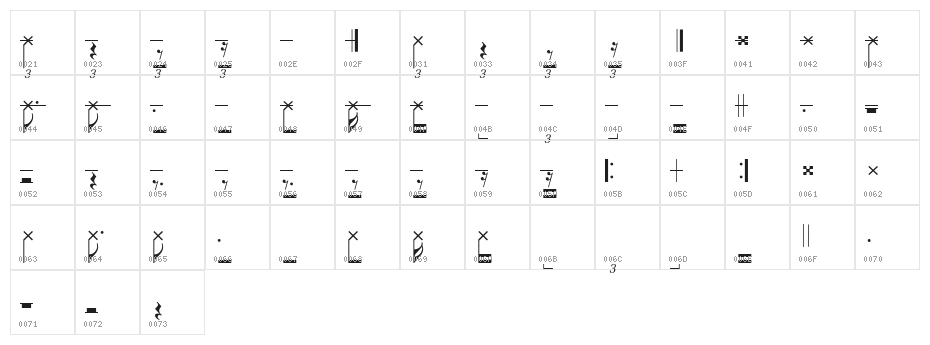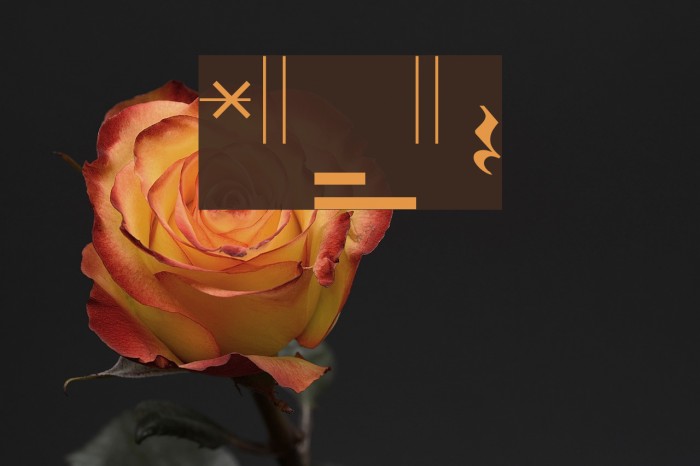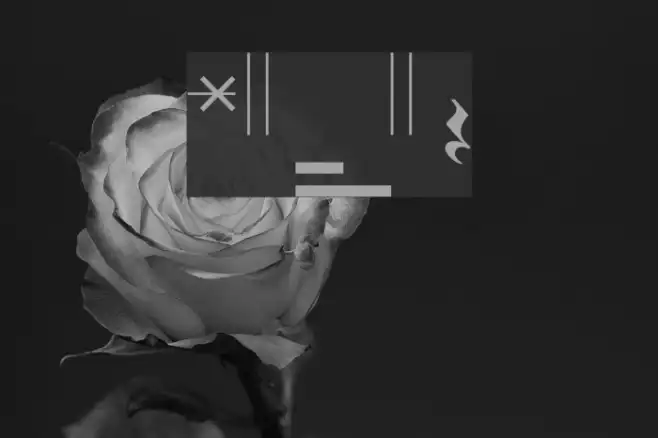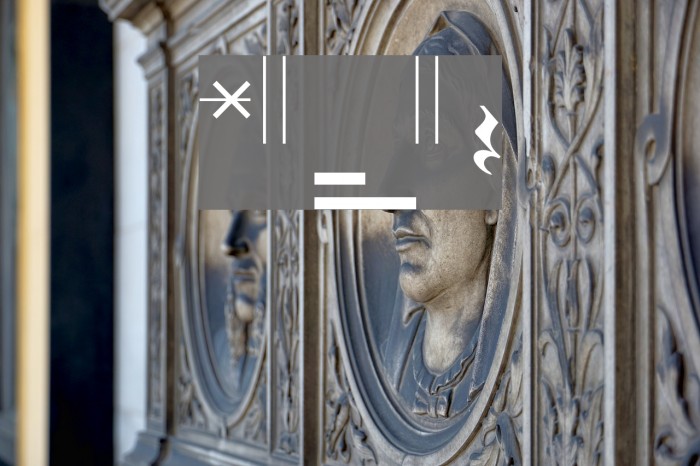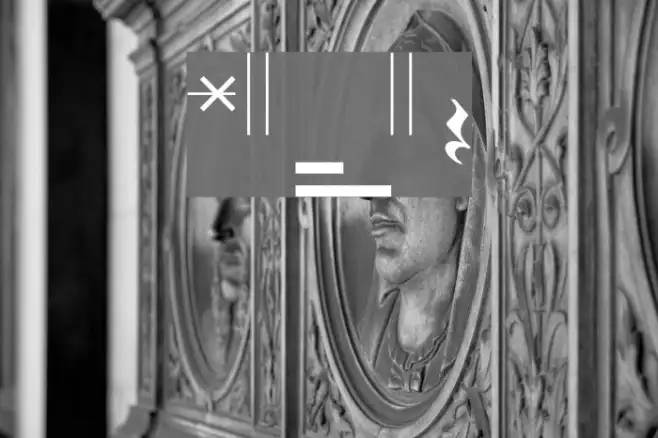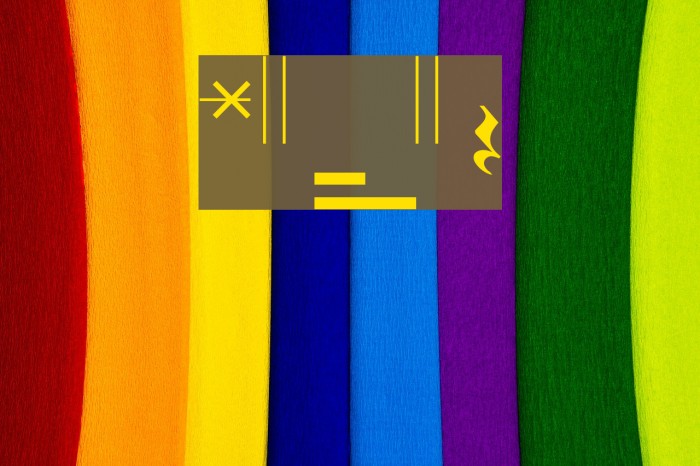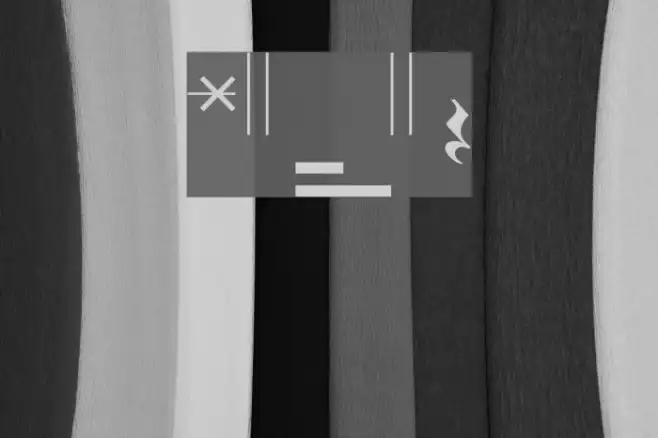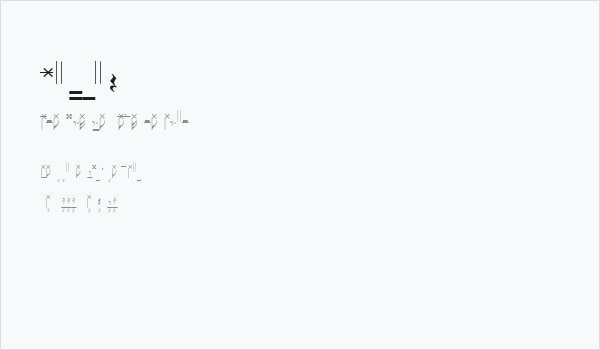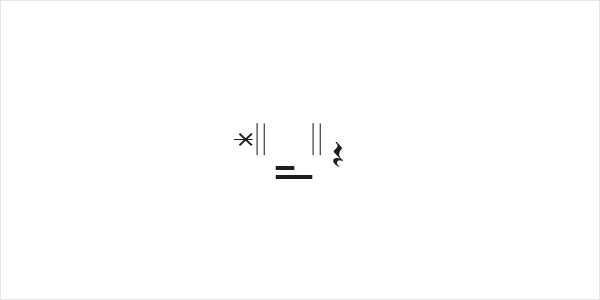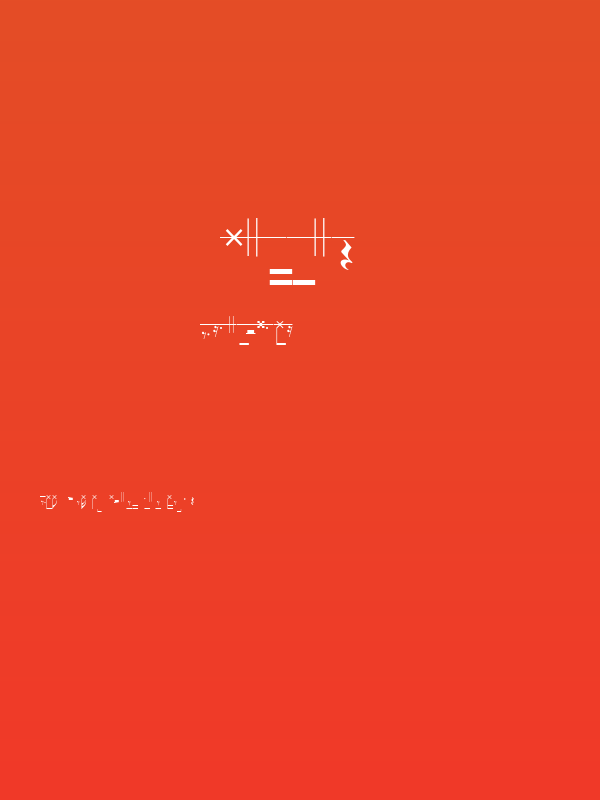
Bongos2 Font
Bongos2 Description
This image displays a set of musical notation symbols specifically for percussion, featuring note heads, rests, beams, tuplets, and articulation marks in a highly stylized, specialized music font. The glyphs are bold, geometric, and optimized for clarity in sheet music, with consistent line thickness and spacing for readability.
| Overall Style | Functional, Modern, Specialized |
| Use Case | Music notation, Educational materials, Sheet music |
| Proposed Projects | Sheet music engraving, percussion notation, educational music materials, digital music publishing. |